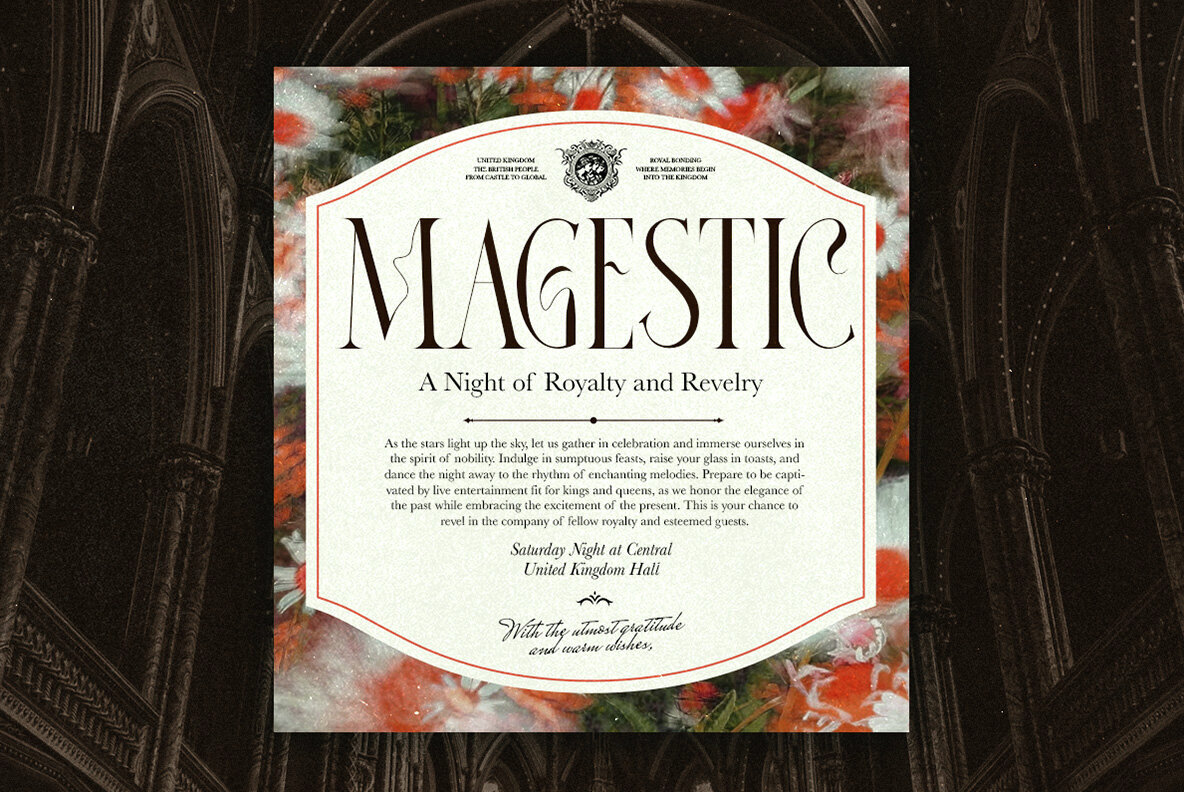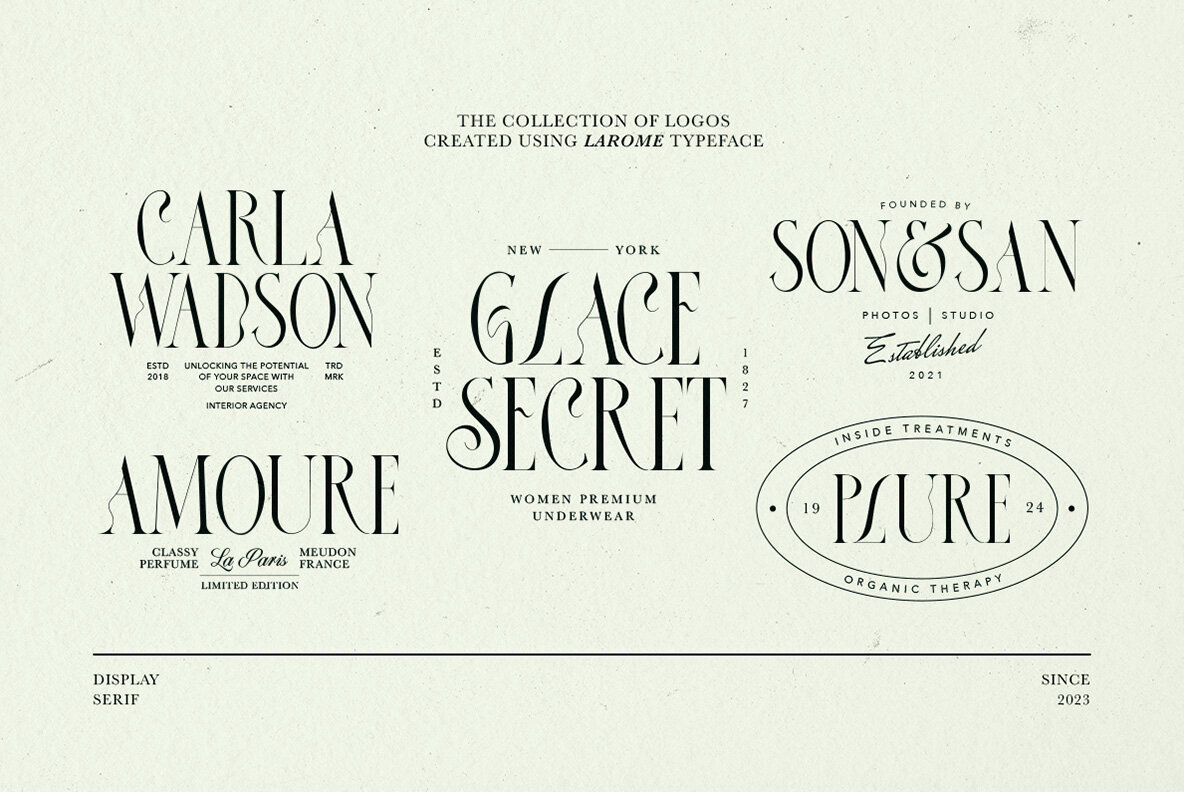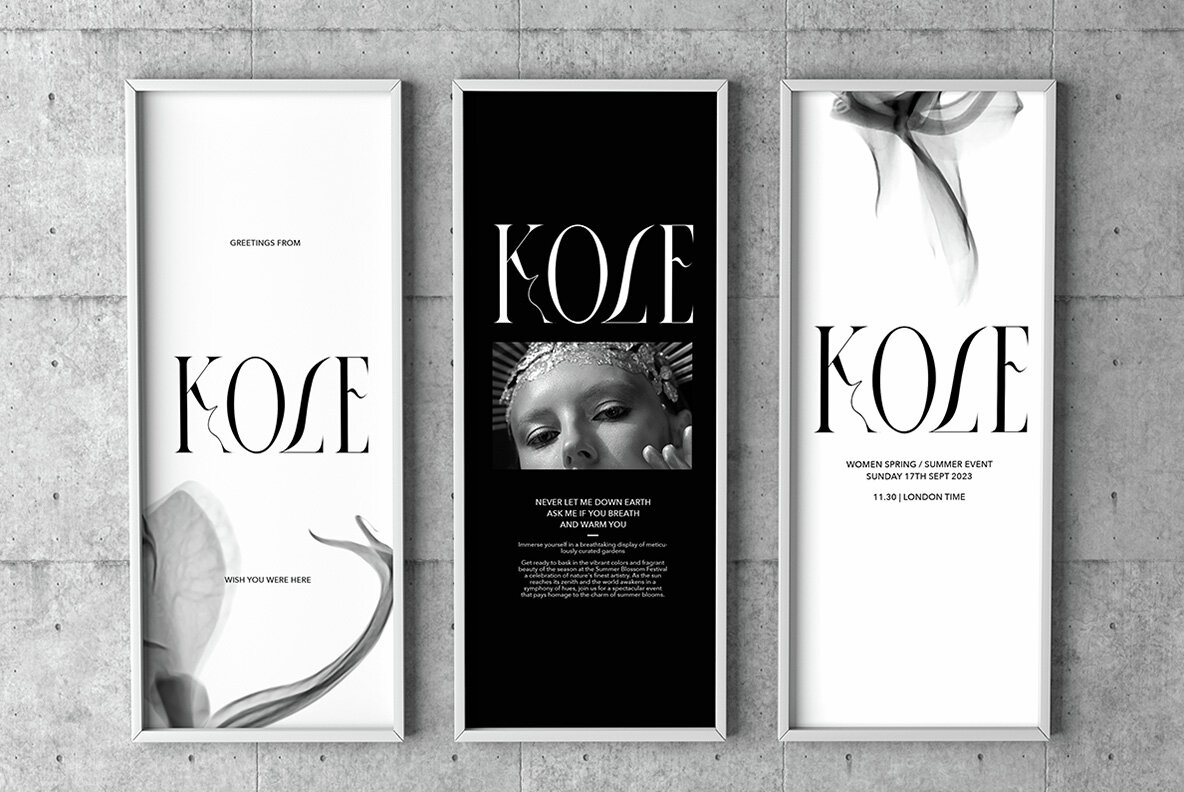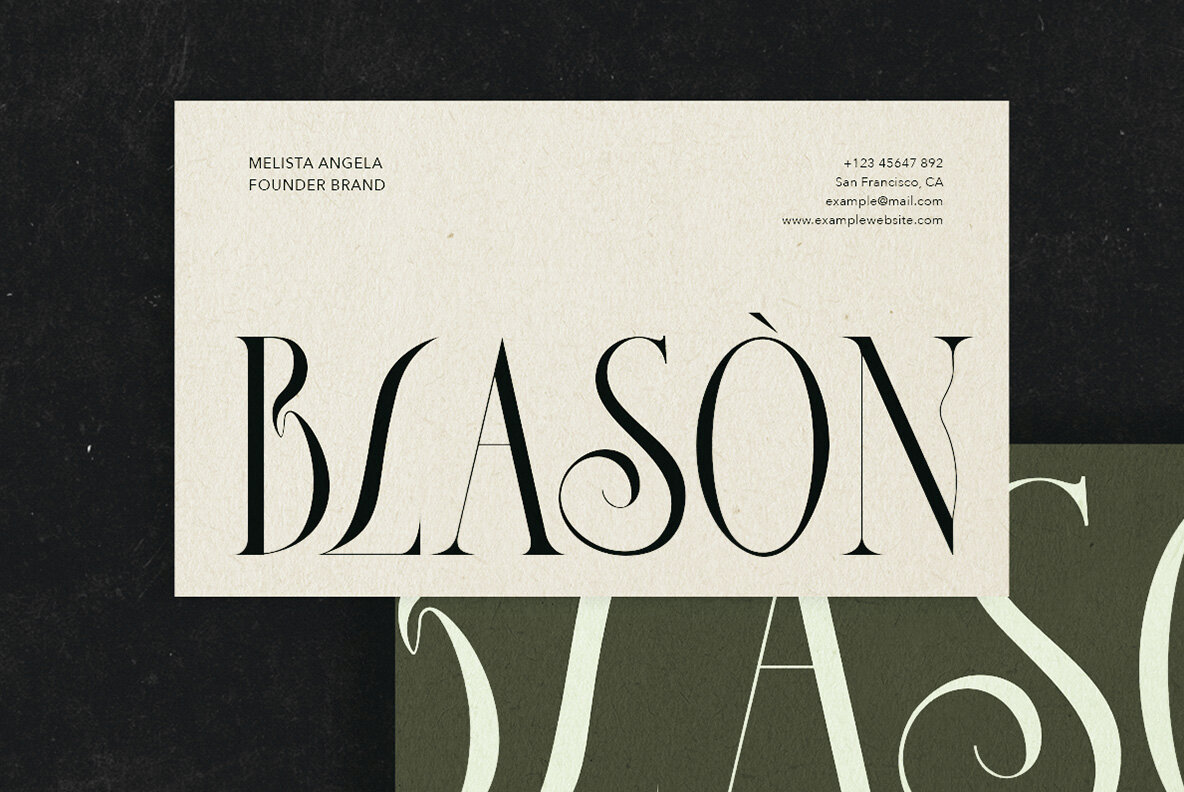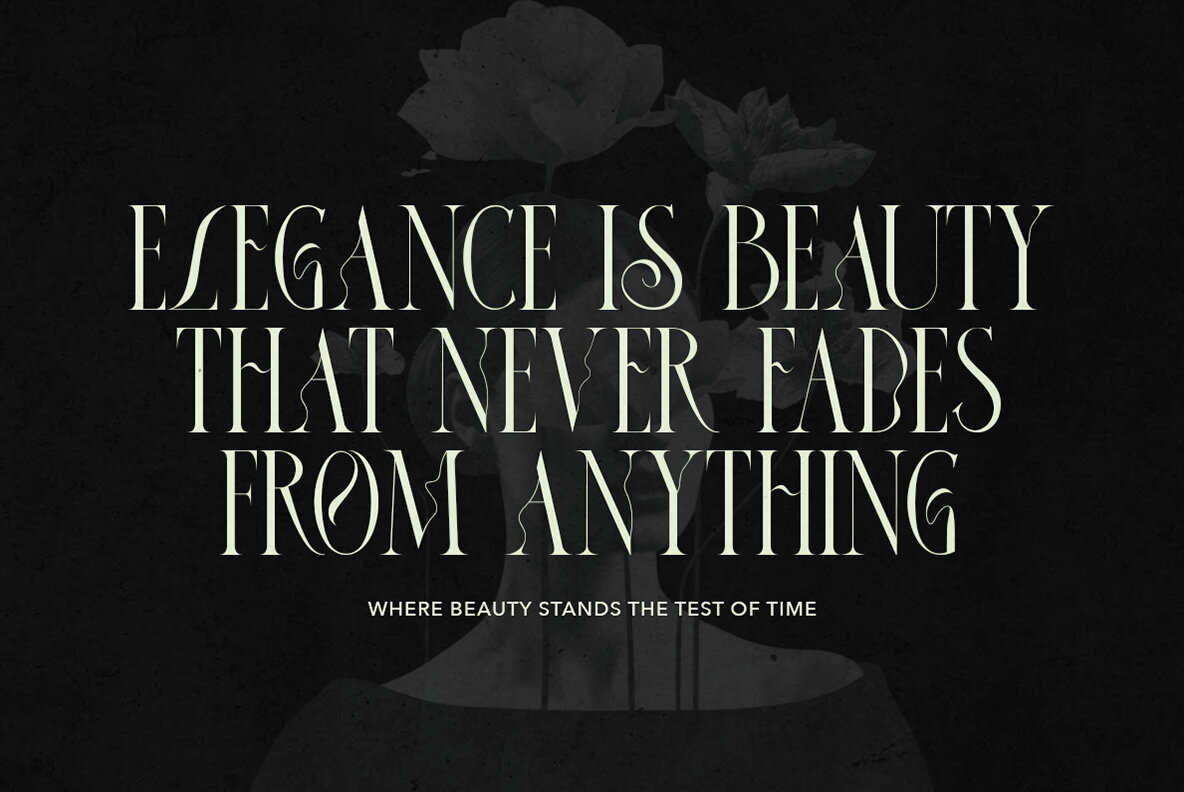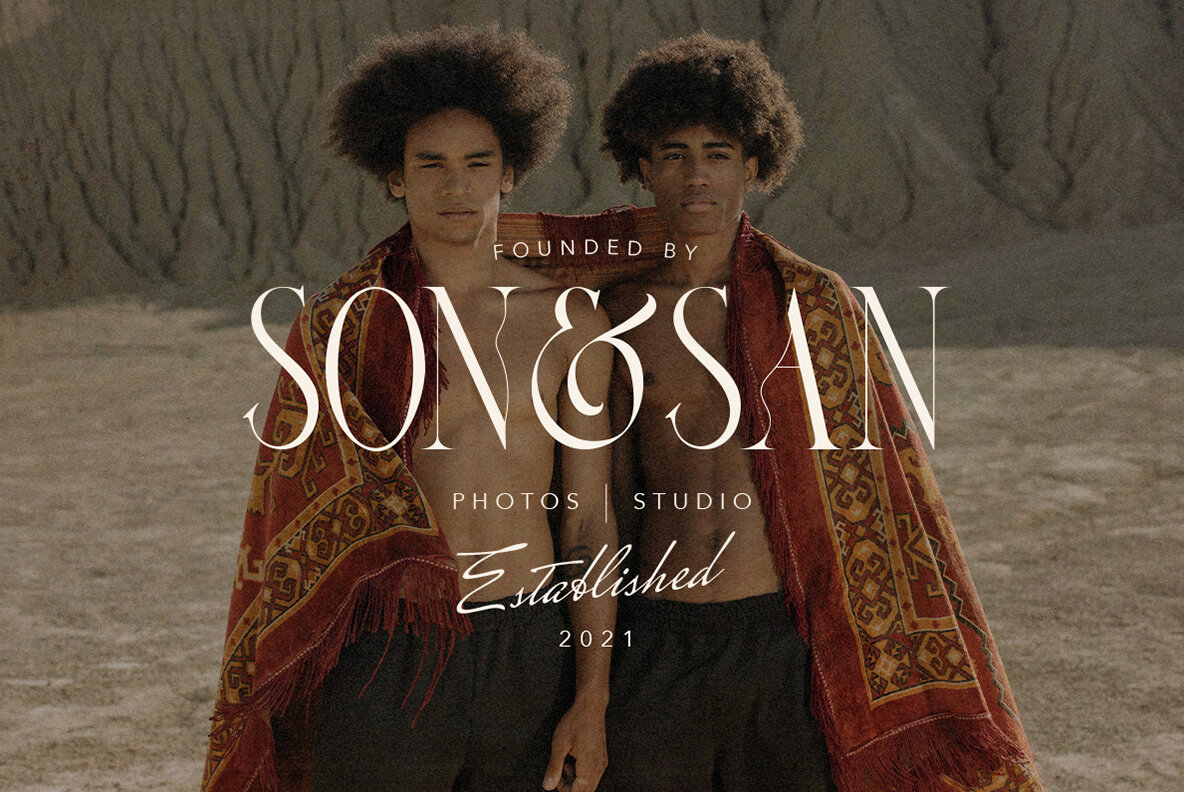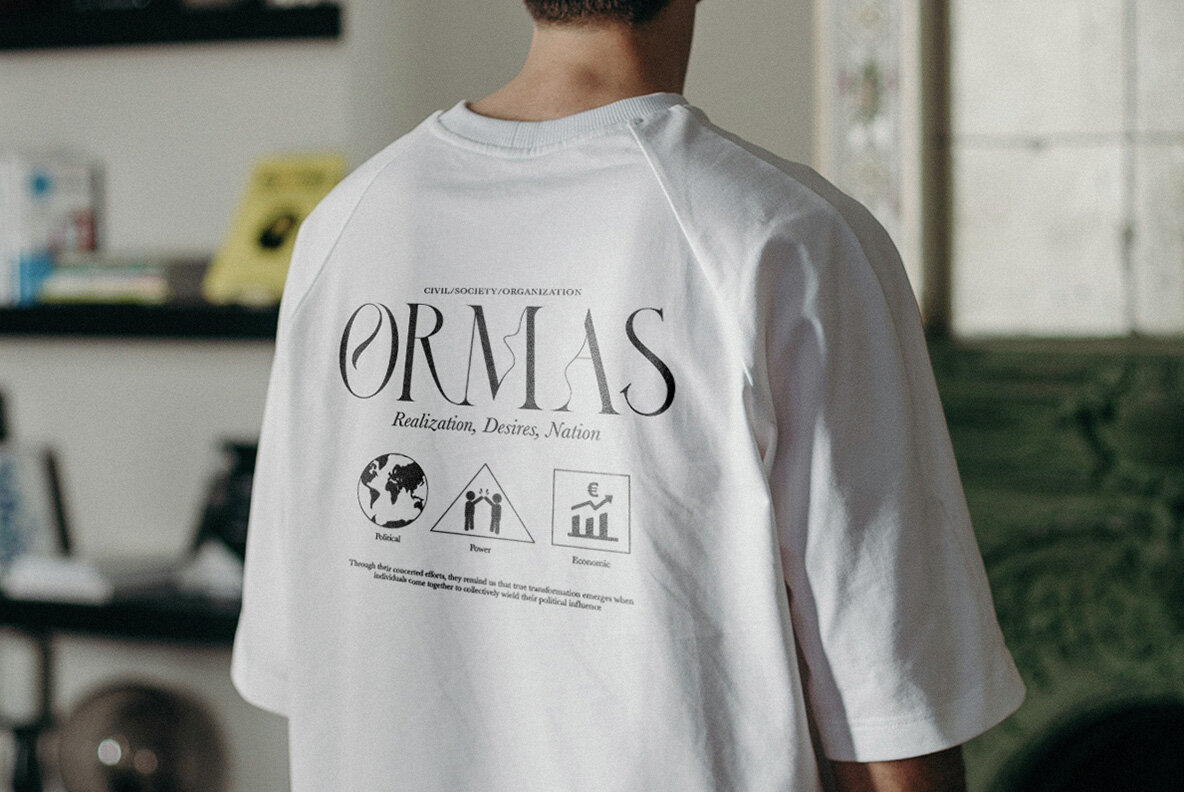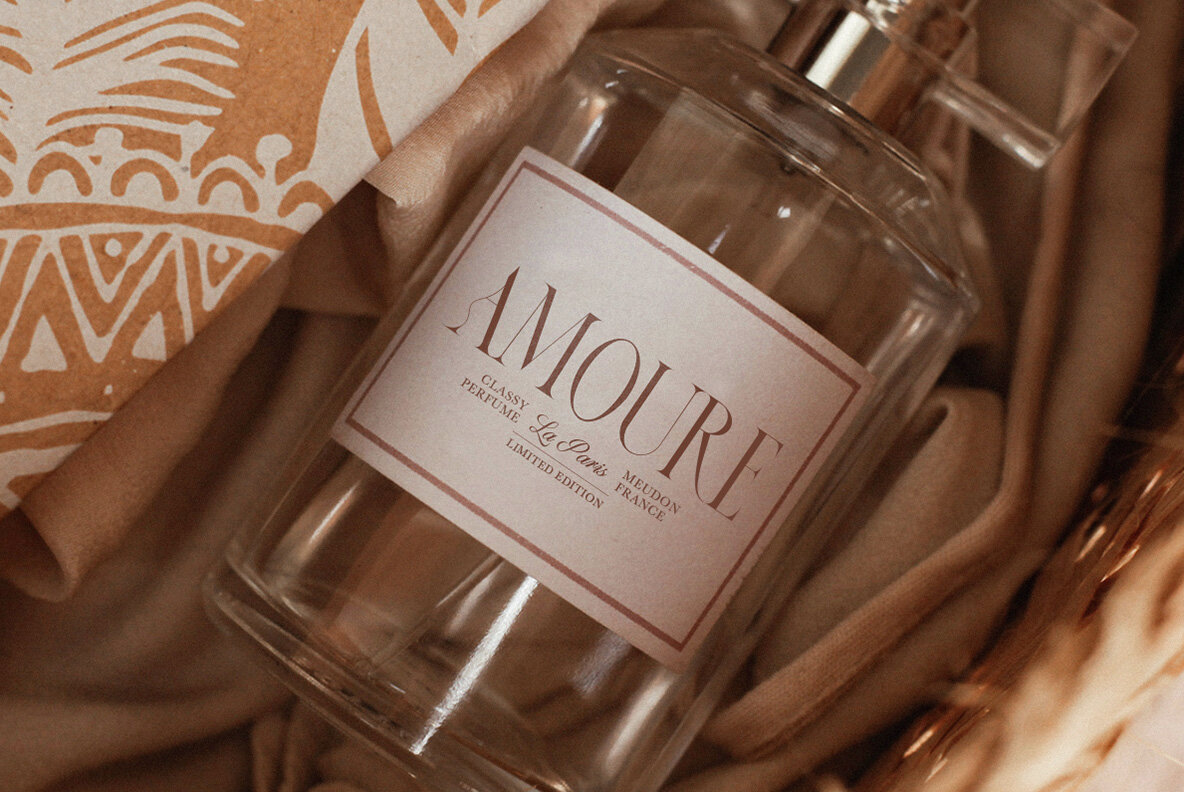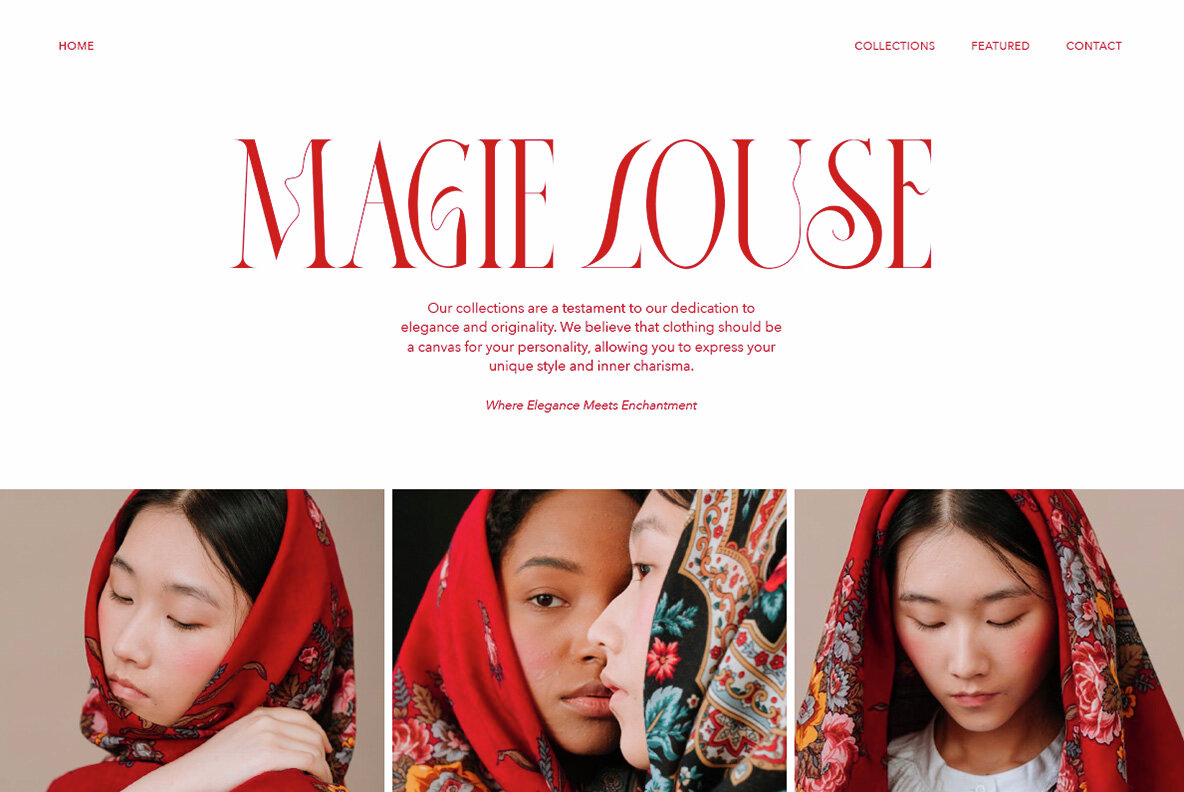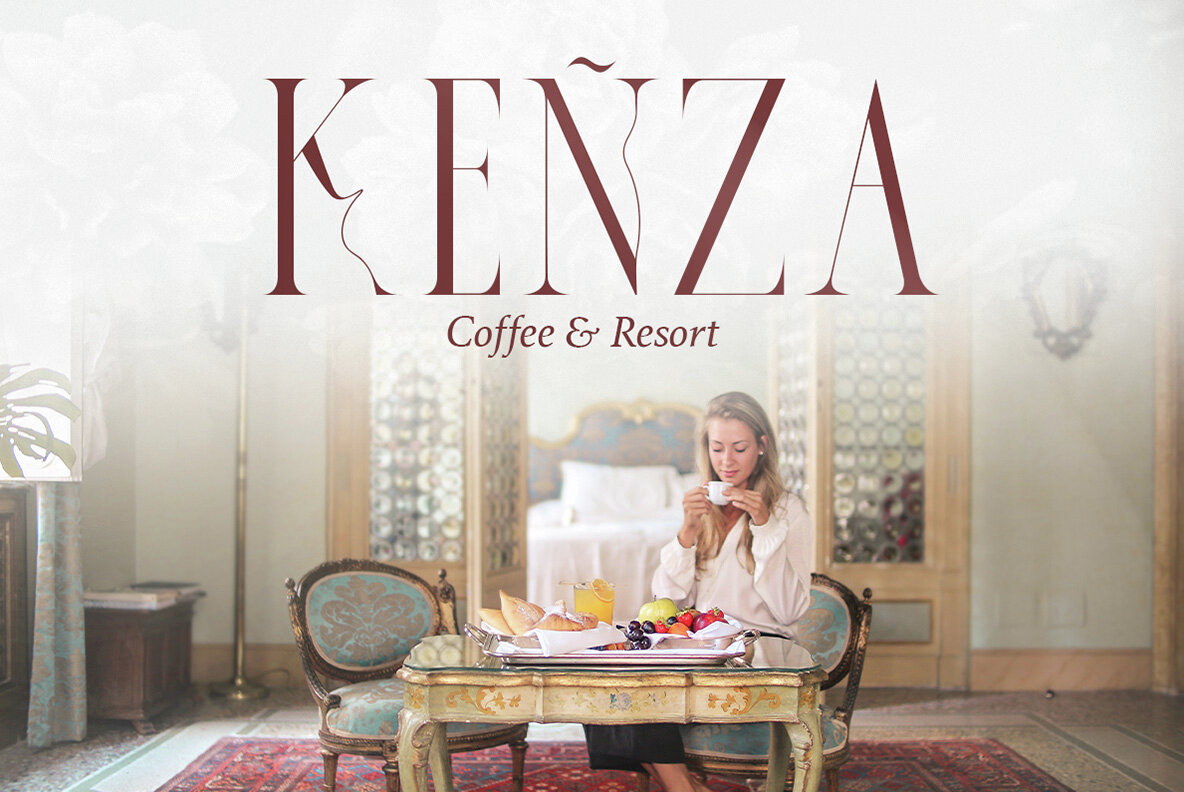
Larome Font
Larome Regular
Larome font is a serif font that possesses a truly unique style. This font is combined with lowercase characters that feature graceful curves, resulting in a distinctive and captivating style. Larome font is well-suited for display purposes and for branding products that exude an elegant, unique, and antique ambiance.